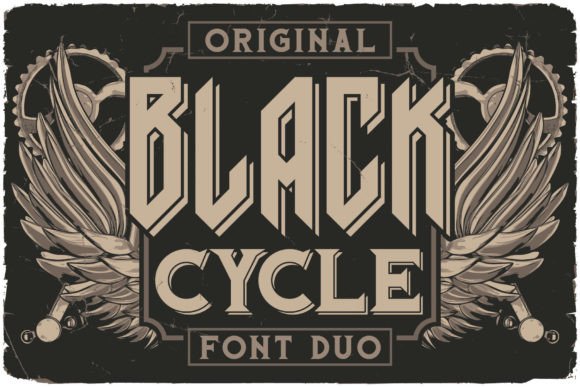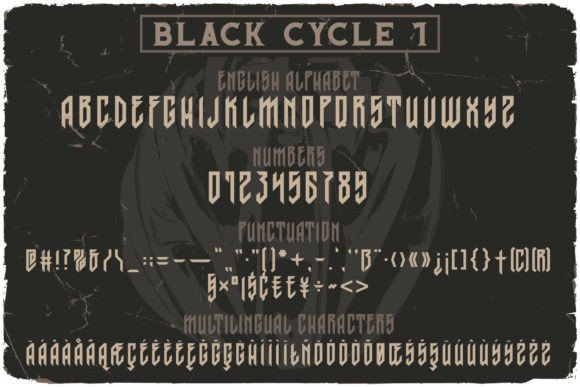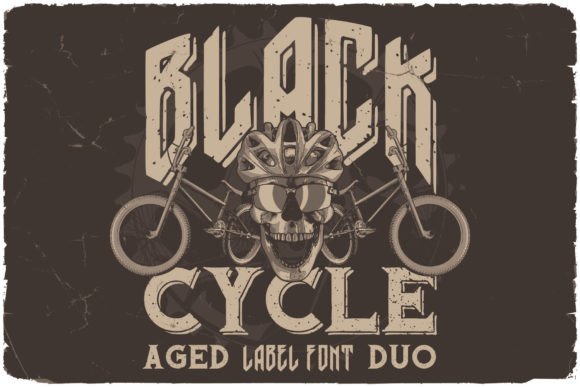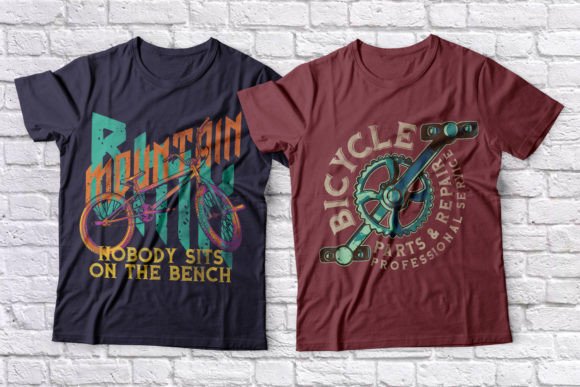
Black Cycle Font
Black Cycle is a stunning blackletter font that evokes the charm and grandeur of the past. With its intricate details and vintage appeal, this font is perfect for adding a touch of elegance to logos, signage, and packaging design. Its timeless beauty and classic sophistication make it a must-have for any designer looking to create a sense of history and tradition in their work.